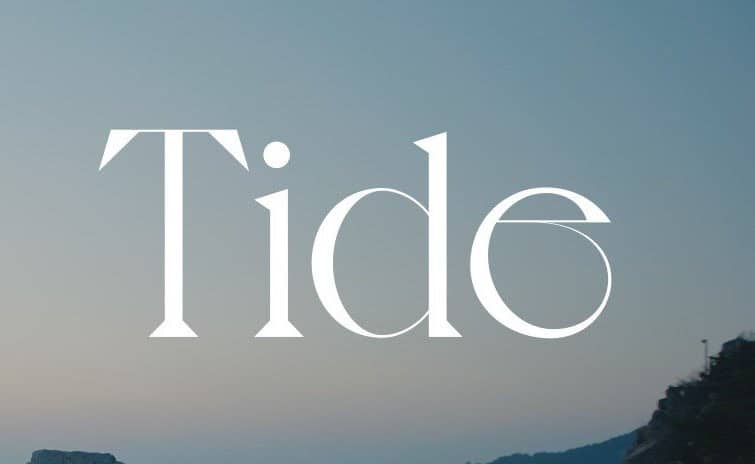
Can someone help me identify this font? Thanks.
Voyage typeface.
Voyage Font was designed in 2019 in Paris by Jérémy Schneider. It's both romantic and curvy and fantastic for creative headlines or short text. Voyage features delicate hairlines for maximum contrasts and has over 55 stylistic ligatures, 26 variants, which are in open-type format. This means you can decide which glyph to alternate.